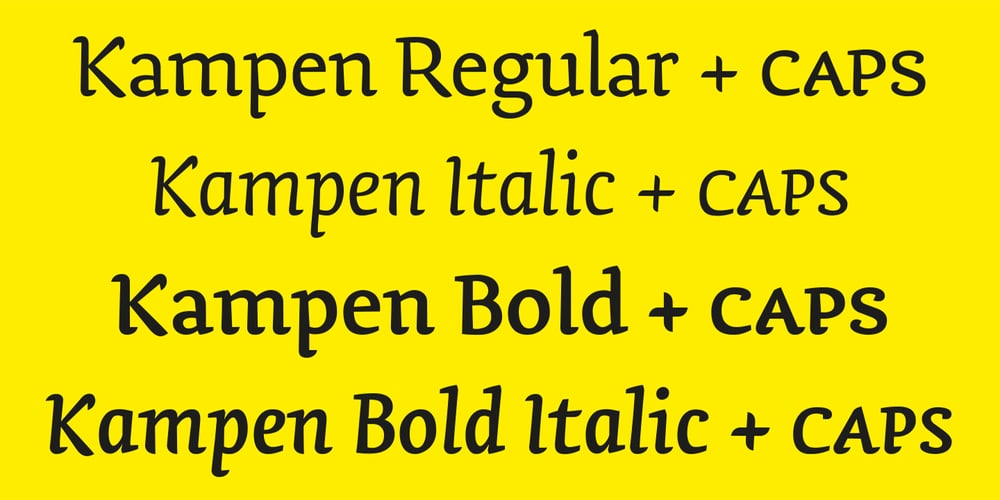
Ps Kampen
Ps Kampen font
Ps Kampen Font Family was designed by Peter Slager and published by Fontopia. Ps Kampen contains 4 styles and family package options. psKampen is a contemporary font with a medieval experience. It has no real serifs, but is good to use as a book character. Several characters have a swash variant in addition to the normal versions.